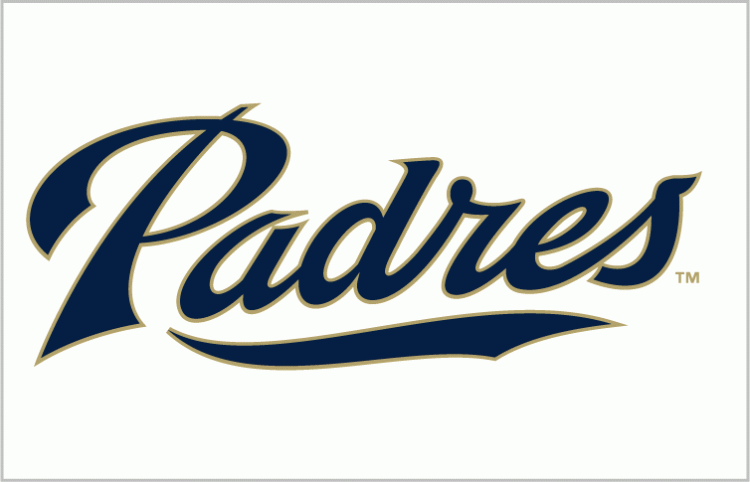
Size san diego font by rafsaan rabb. Posted by 4 days ago.
Diego was originally produced as a custom font for the san diego padres broadcast graphics package.
San diego padres font dafont. The mlb padres font contains 66 beautifully designed characters. Azo sans bold commercial fonts. Is it available on dafont.com?
The font used for san diego padres logo is eurostile bold, which is a square sans serif font designed by alessandro butti and published by adobe. What's the font used for detroit tigers logo? Diego was originally produced as a custom font for the san diego padres broadcast graphics package.
Posted by 1 day ago. What font is the “san diego padres”? San diego font | dafont.com english français español deutsch italiano português.
I was imagining copperplate gothic dressed in a black linen suit. Aug 02, 2015 at 17:58. Similar free fonts for brutal type black font.
Free download of mightyspidey font. Eurostile bold font on myfonts.com Posted by 1 day ago.
Free alternative fonts for san diego padres logo: The licence mentioned above the download button is just an indication. San diego font duo is a gorgeous combination of sans serif and signature script style.
This stylish fonts are great for modern designs, logos, posters, branding, social. I was imagining copperplate gothic dressed in a black linen suit. Aug 21, 2016 at 07:16.
The closest font we can find for detroit tigers logo is collins old english regular, which is a blackletter font designed by david nalle and published by scriptorium. Download free fonts for san diego. Download free fonts for san diego padres logo.
What font is the “san diego padres”? The font used for san diego padres logo is eurostile bold, which is a square sans serif font designed by alessandro butti and published by adobe. Posted by 6 days ago.
The closest font you can get for the san diego padres logo is eurostile bold font. Nhl san jose download nhl san jose. Free alternative fonts for san diego padres logo:
Posted by 2 days ago. Does anyone have or know where i can find the font used on san diego padres uniforms? If you recognize the font from the samples posted here don't be shy and help a fellow designer.
Although we have the largest database of fonts, the search for a font from an image gets mixed results like the image above. Size san diego à by typeline studio. Thousands of designers (famous or not) use the image font detection system to find a font or similar free fonts from an image.
Rocinante titling bold download rocinante titling bold similar free fonts for rocinante titling bold font. Mlb padres truetype font download free mlb padres font (14 kb) mlb padres font custom preview tool. Buy font azo sans bold commercial fonts.